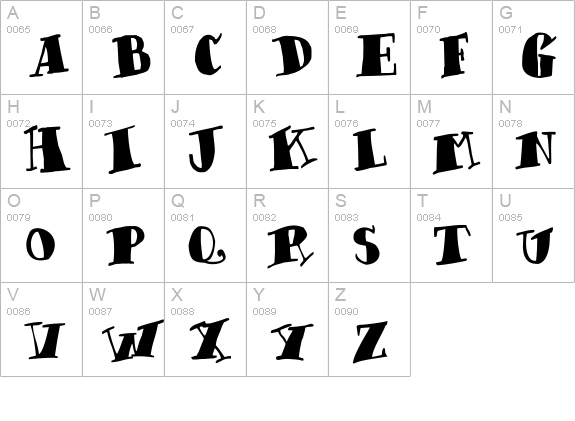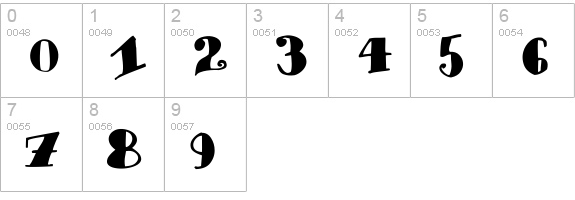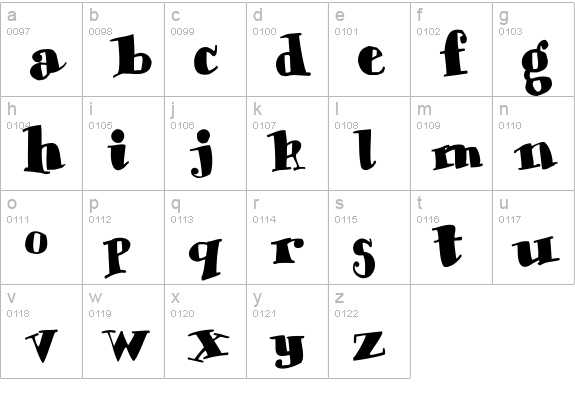
Chunky Times Font Details
Chunky Times font is a bold and eye-catching typeface that exudes a sense of strength and confidence. With its thick, chunky letterforms and prominent serifs, this font is perfect for making a statement in headlines, titles, and other prominent text elements. Its modern and versatile design makes it suitable for a wide range of projects, from branding and advertising to social media graphics and packaging. And the best part? Chunky Times font is completely free to download at FontsMarket.com! Whether you're a graphic designer looking to add a bold touch to your projects or a business owner searching for a distinctive font for your branding, Chunky Times font is the perfect choice. Download it today and make your text stand out with its unique and impactful style.